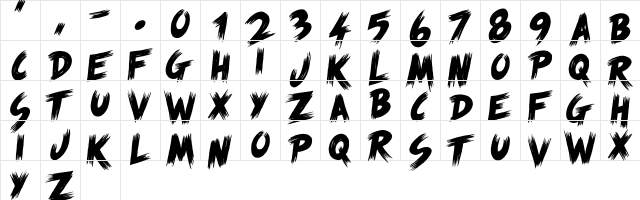
Scream Again Regular
| Designer | imagex |
Design Context for Scream Again Typeface
Scream Again is a composed and adaptable typeface that performs quietly and consistently across a wide range of design contexts.